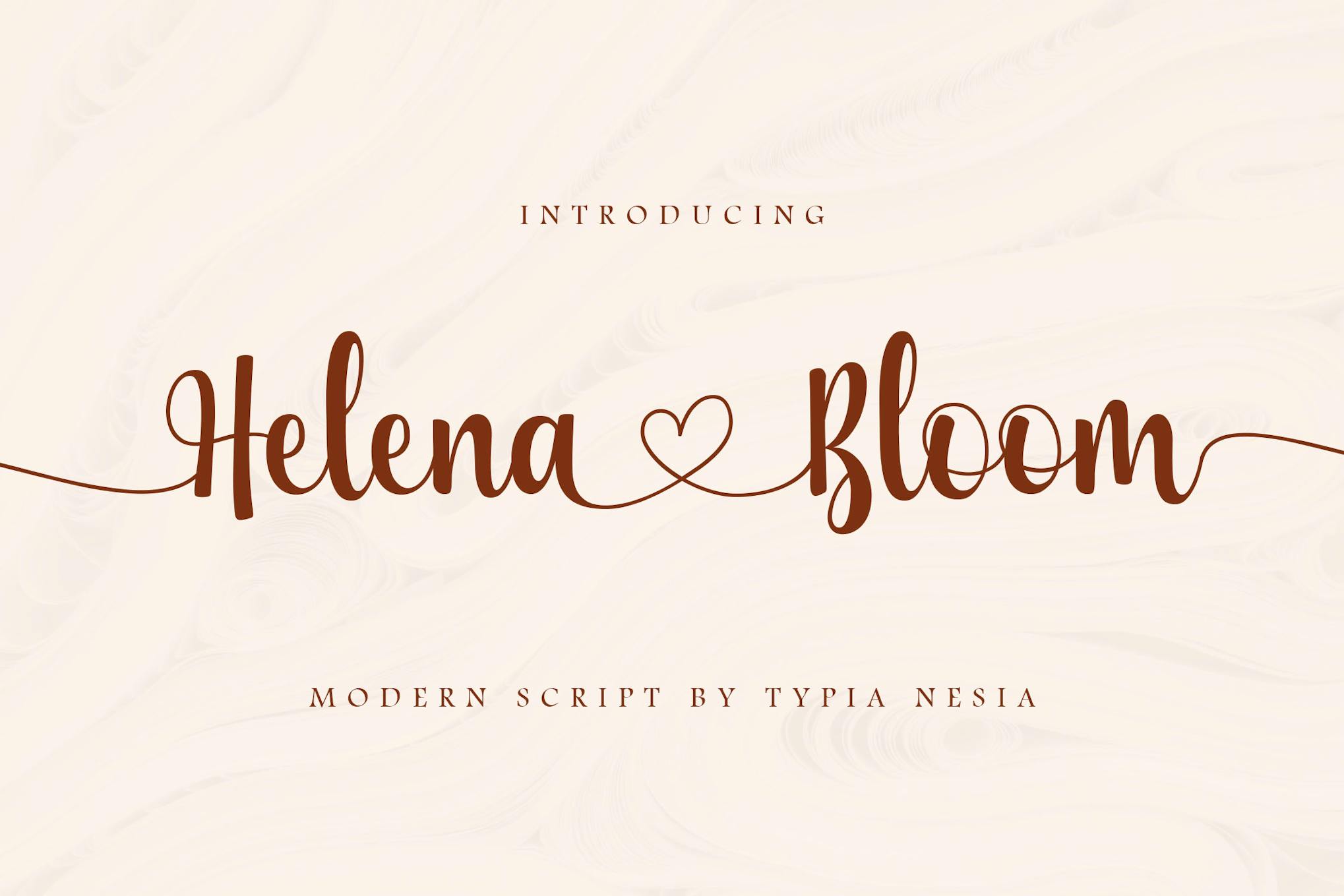
Helena Bloom - Wedding Font
The Helena Bloom - Wedding Font excels in botanical design applications including blooming wedding invitations, floral bridal branding, garden ceremony logos, botanical product packaging, blooming business cards, floral portfolios, garden greeting cards, botanical social media graphics, blooming event signage, and floral marketing materials. Its blooming script style makes it perfect for projects requiring botanical elegance that communicates flowering beauty and establishes garden brand positioning with audiences seeking blooming wedding experiences and floral sophistication.
What makes the Helena Bloom - Wedding Font truly exciting is its exceptional ability to capture the blooming beauty and floral elegance of garden weddings through botanically crafted letterforms. The font features flowing, bloom-inspired strokes with floral flourishes and garden proportions that create a distinctly botanical appearance. Each character displays remarkable attention to blooming detail with floral curves, garden connections, and botanical spacing that give text a beautifully blooming, hand-lettered quality. The font's floral character and blooming rhythm create an atmosphere of garden elegance while maintaining botanical sophistication and wedding authenticity.
The Helena Bloom - Wedding Font family typically includes regular weight with extensive character coverage, featuring uppercase and lowercase letters, numerals, punctuation marks, and international characters. The typeface often incorporates stylistic alternates, contextual ligatures, and floral swashes that enhance its signature blooming appeal. These additional elements provide designers with creative flexibility to customize text appearance and achieve more natural-looking botanical handwriting that reflects the font's blooming and floral character.
This blooming signature font distinguishes itself through its remarkable balance of floral charm and sophisticated elegance. Unlike wilted or artificial fonts that lack botanical appeal, Helena Bloom - Wedding Font embraces the power of blooming design to create floral connections with garden wedding audiences. The font's botanical character makes it essential for blooming wedding planners, floral brands, and garden celebration businesses where creating botanical wedding experiences and blooming memories is fundamental to success in floral wedding markets.